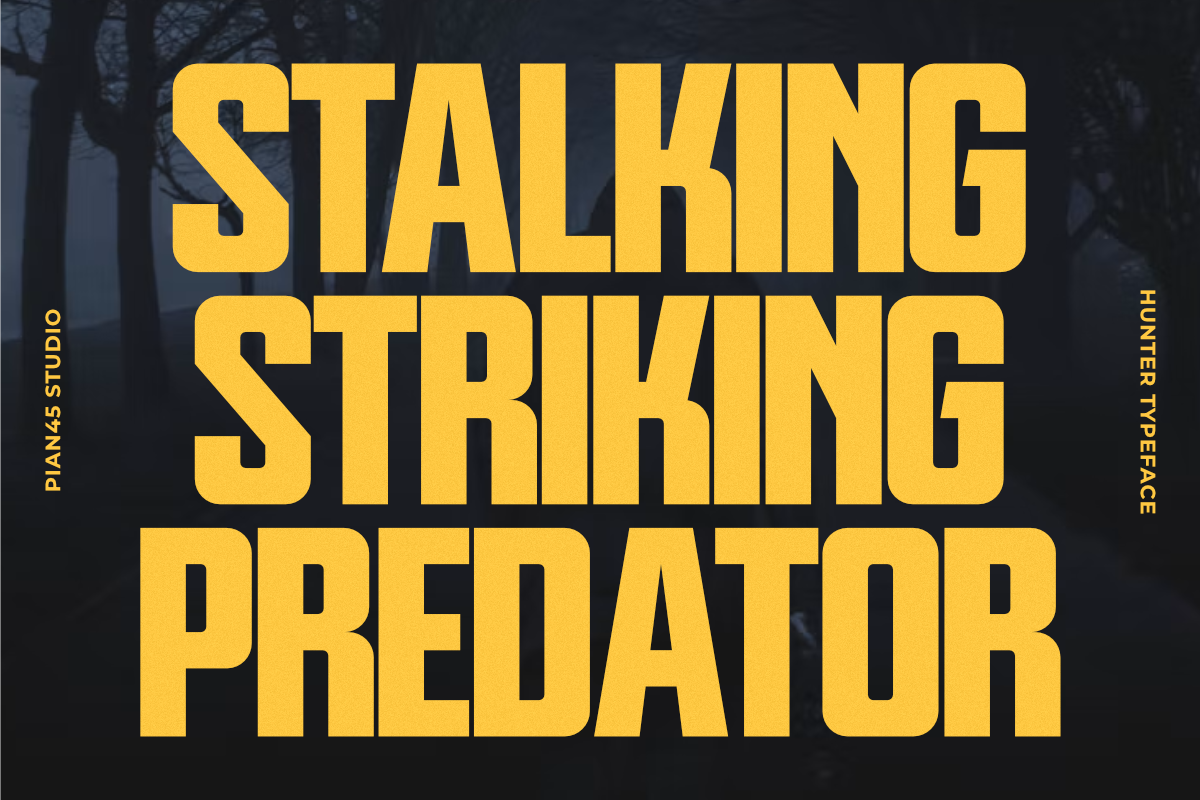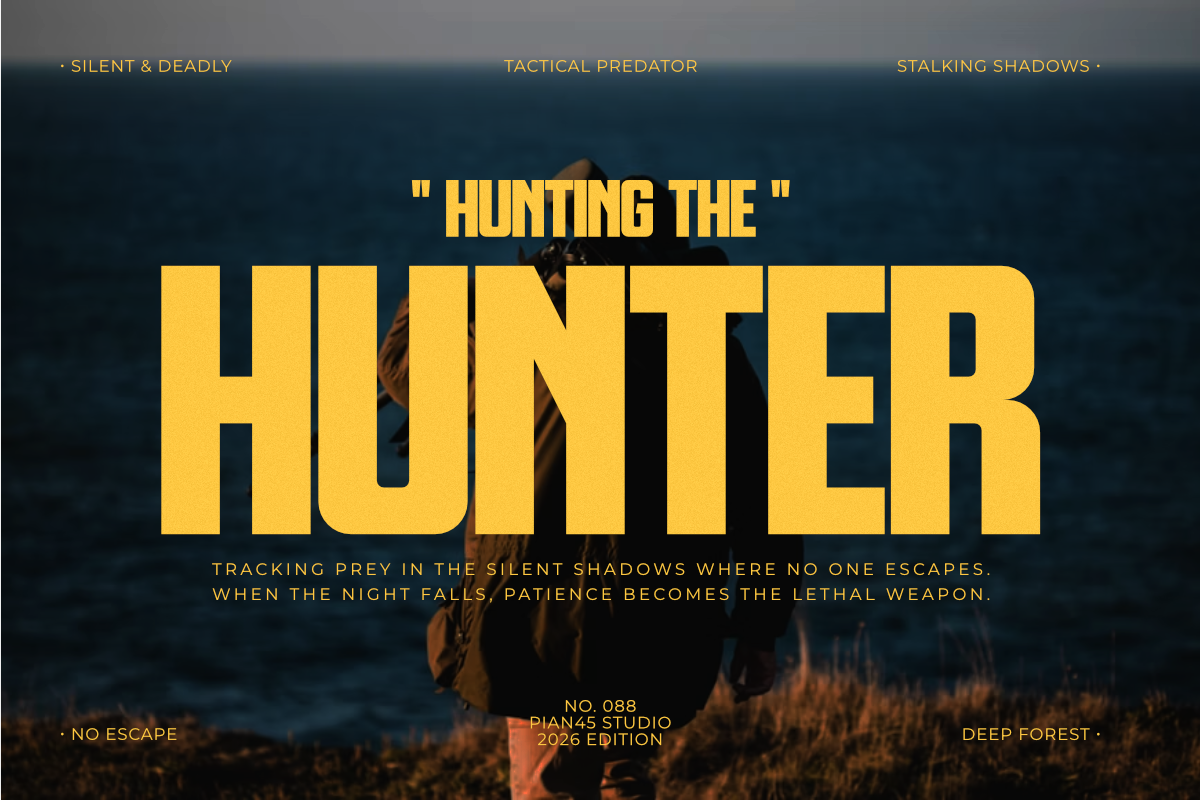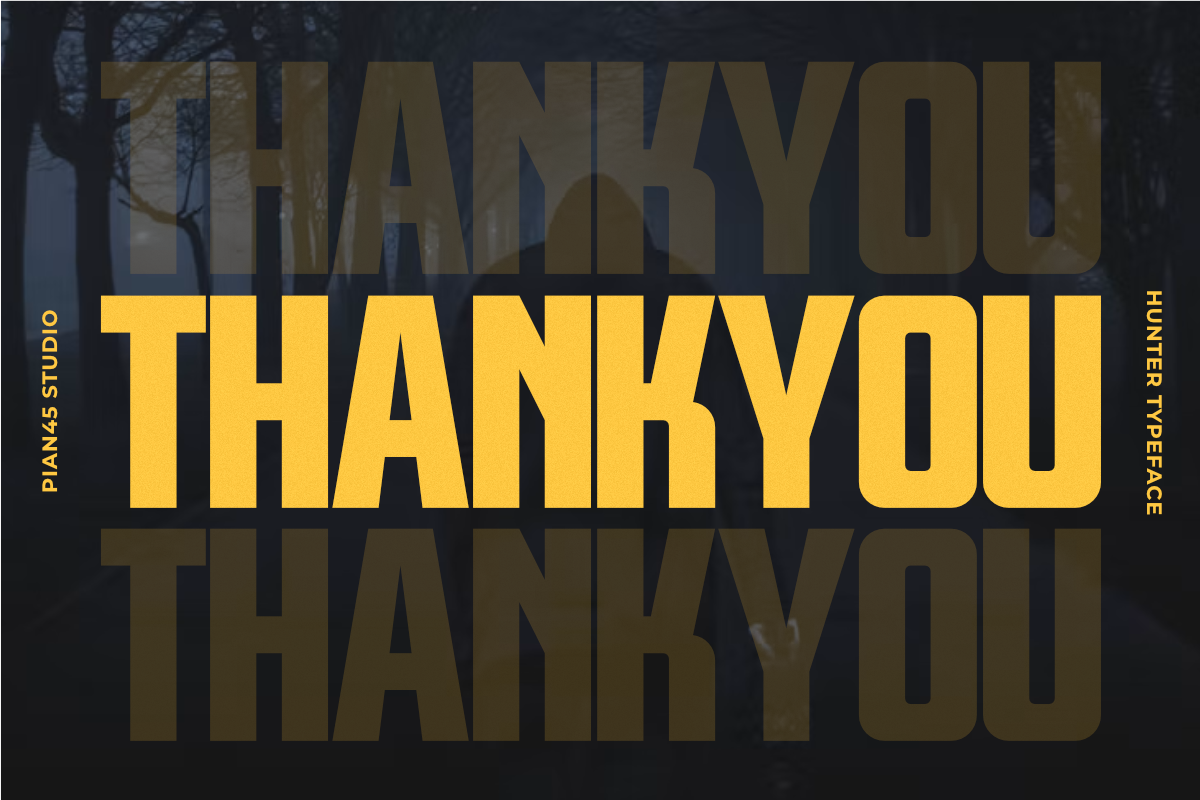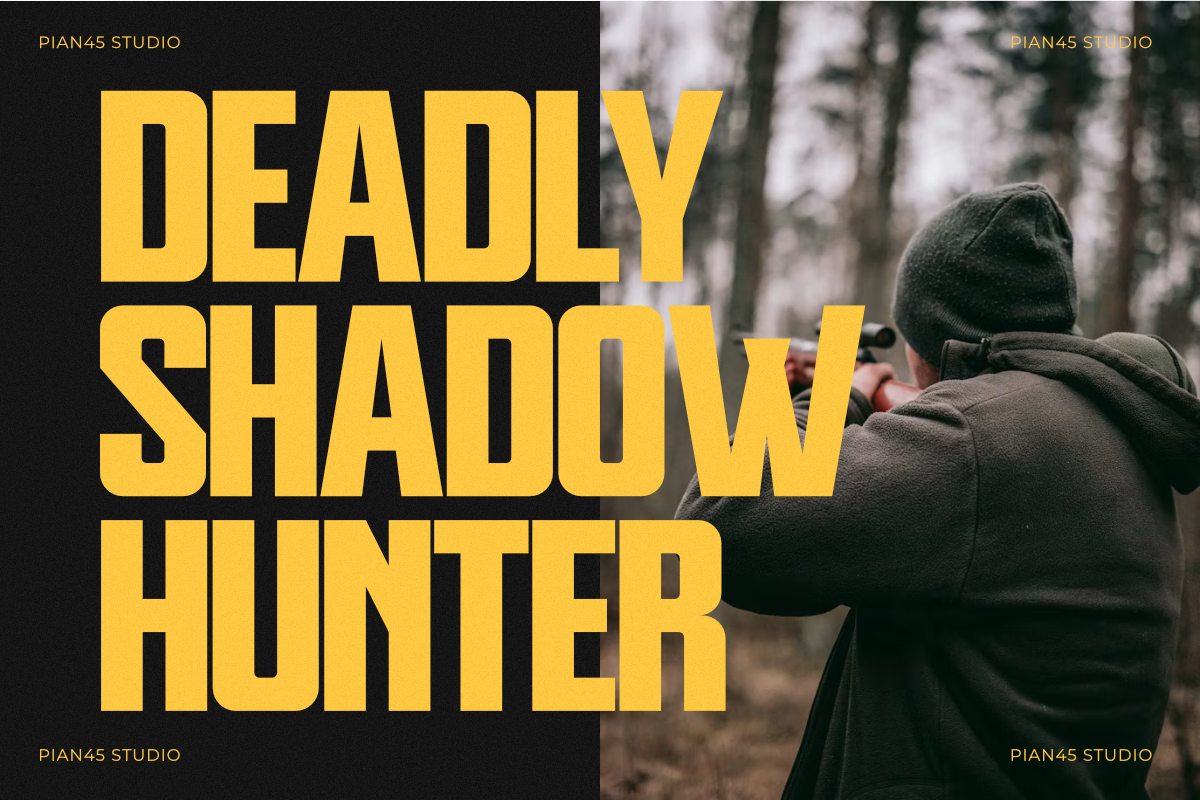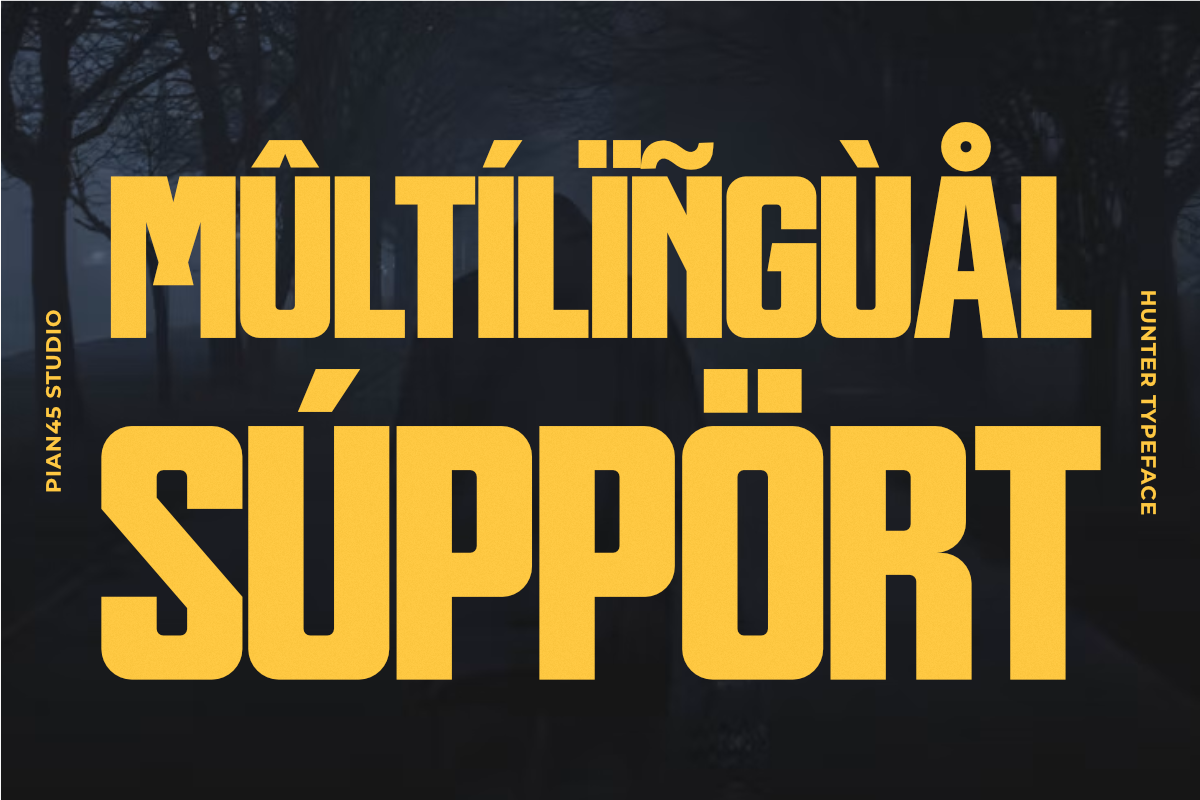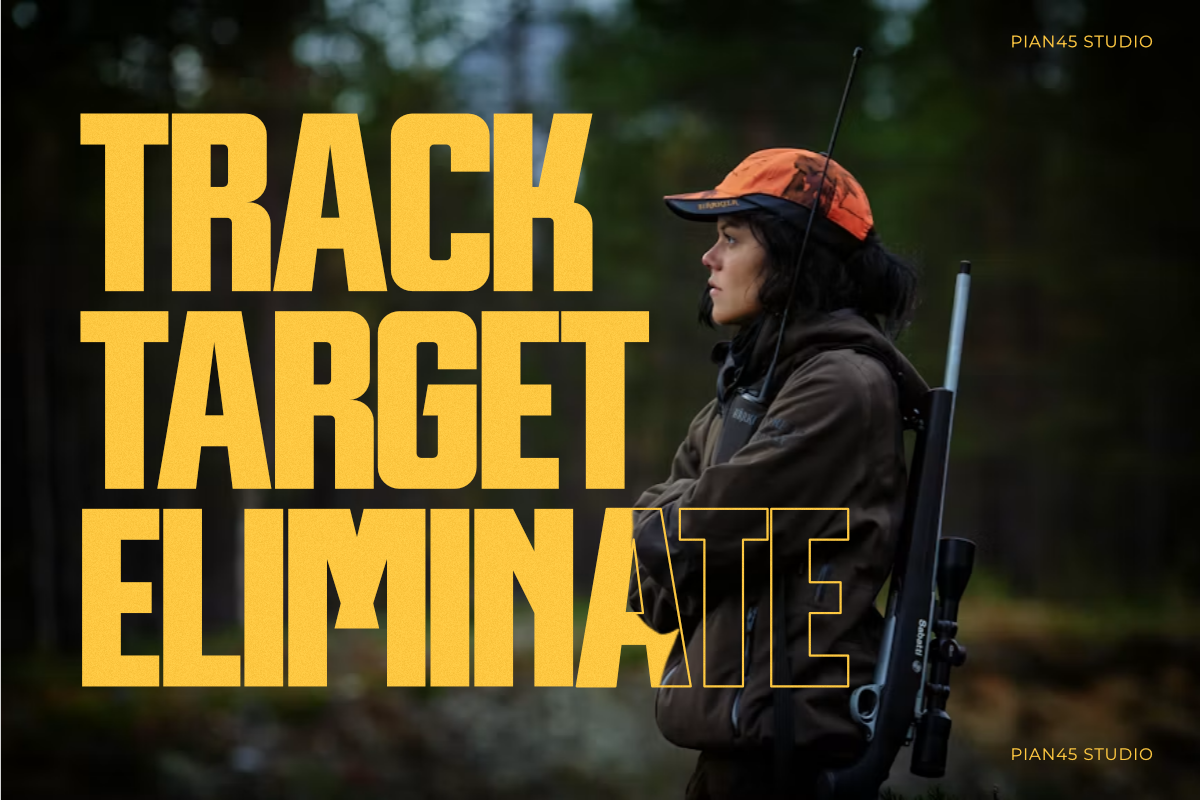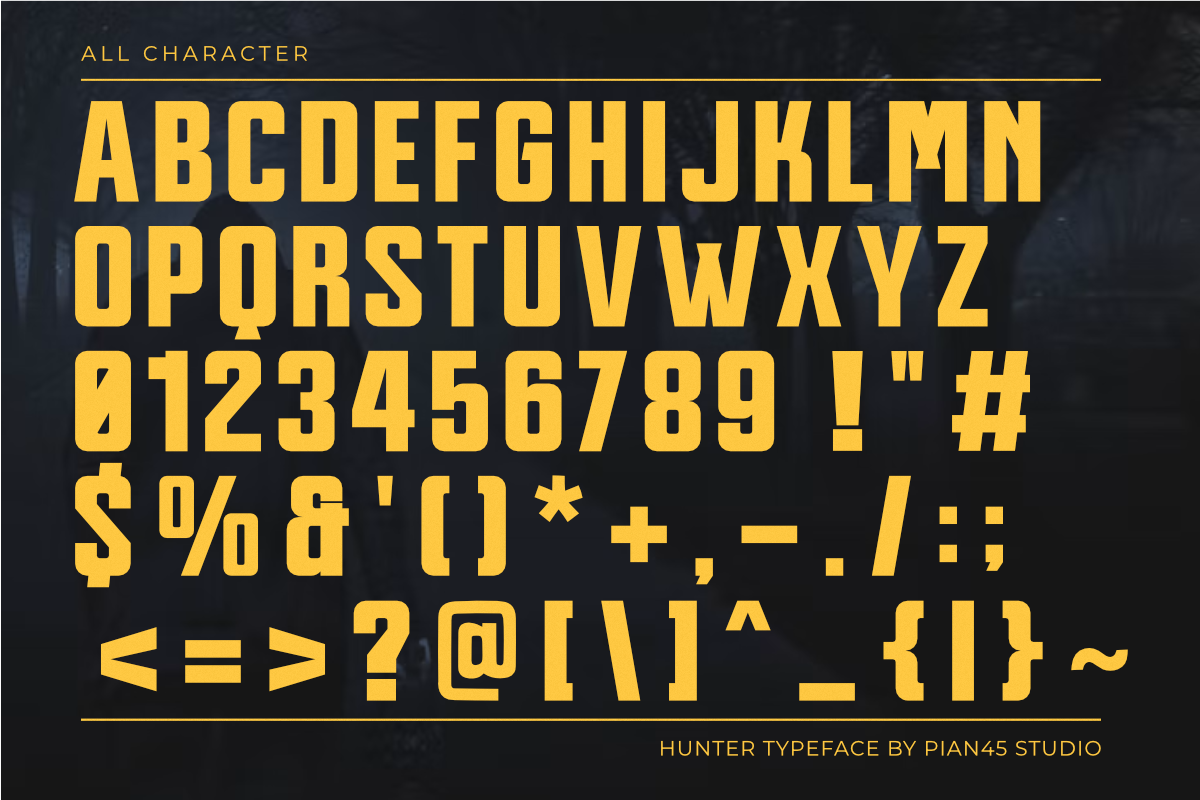
Hunter - Futuristic Sans Display
Hunter is a sharp, aggressive, and high-impact Futuristic Condensed Sans Display font engineered to blend futuristic tech precision with dark thriller aesthetics. Designed with heavy geometric block structures, subtle angular cuts, space-saving narrow proportions, and full multilingual support, this all-caps typeface is crafted for sci-fi gaming graphics, esports logos, action movie titles, cyberpunk branding, and urban streetwear lines. Its commanding visual weight and sharp structure deliver maximum legibility, making it the ultimate tool for striking headlines, book covers, promotional posters, and high-visibility digital marketing banners.